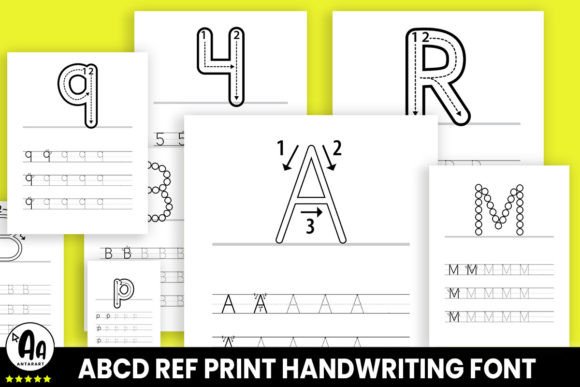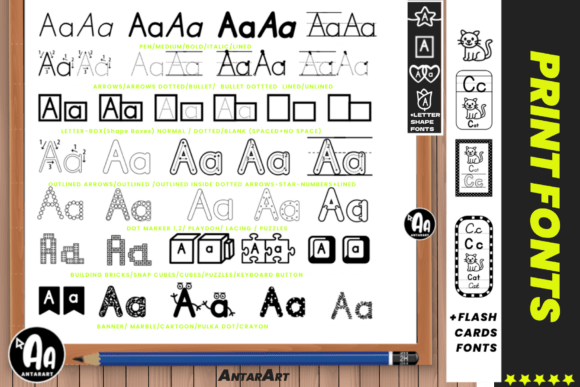
The Ultimate Guide to Abcd Ref Lined2 Font: A Game-Changer for Designers and Educators
I’ll never forget the time I was working on a project to create educational materials for a client, and I was struggling to find the perfect font. The client wanted a font that was not only visually appealing but also easy to read and versatile enough to be used for various learning activities. That’s when I stumbled upon the Abcd Ref Lined2 font, and it completely changed the game for me. In this article, I’ll share my experience with this fantastic font, its features, and how to make the most of it.
A Personal Review of Abcd Ref Lined2
What I Love About Abcd Ref Lined2
- ✨ Practical and Versatile: Abcd Ref Lined2 is based on the D’Nealian Method US school, making it an excellent choice for creating worksheets, educational materials, and even interactive learning activities.
- ✅ Easy to Read: The font’s clear and clean design makes it easy to read, even for young learners.
- 🎉 Fun and Interactive: The font’s playful and engaging design makes learning fun and interactive.
While Abcd Ref Lined2 is an excellent font, there are a few quirks to be aware of:
- 🤔 Limited Character Set: The font may not have an extensive character set, which could limit its use in certain projects.
- ⚠️ Not Suitable for Body Text: Due to its design, Abcd Ref Lined2 may not be the best choice for body text, as it can be a bit too playful and distracting.
The Story Behind Abcd Ref Lined2
Abcd Ref Lined2 is part of the ABCD Ref font family, which was designed to help educators and designers create engaging and interactive learning materials. The font’s design is based on the D’Nealian Method US school, which emphasizes the importance of handwriting and letter formation in the learning process.
| What is Abcd Ref Lined2? | Abcd Ref Lined2 is a practical display font based on the D’Nealian Method US school, designed to help create thousands of worksheets and educational materials. |
| Is Abcd Ref Lined2 suitable for body text? | No, Abcd Ref Lined2 is not suitable for body text due to its playful and distracting design. |